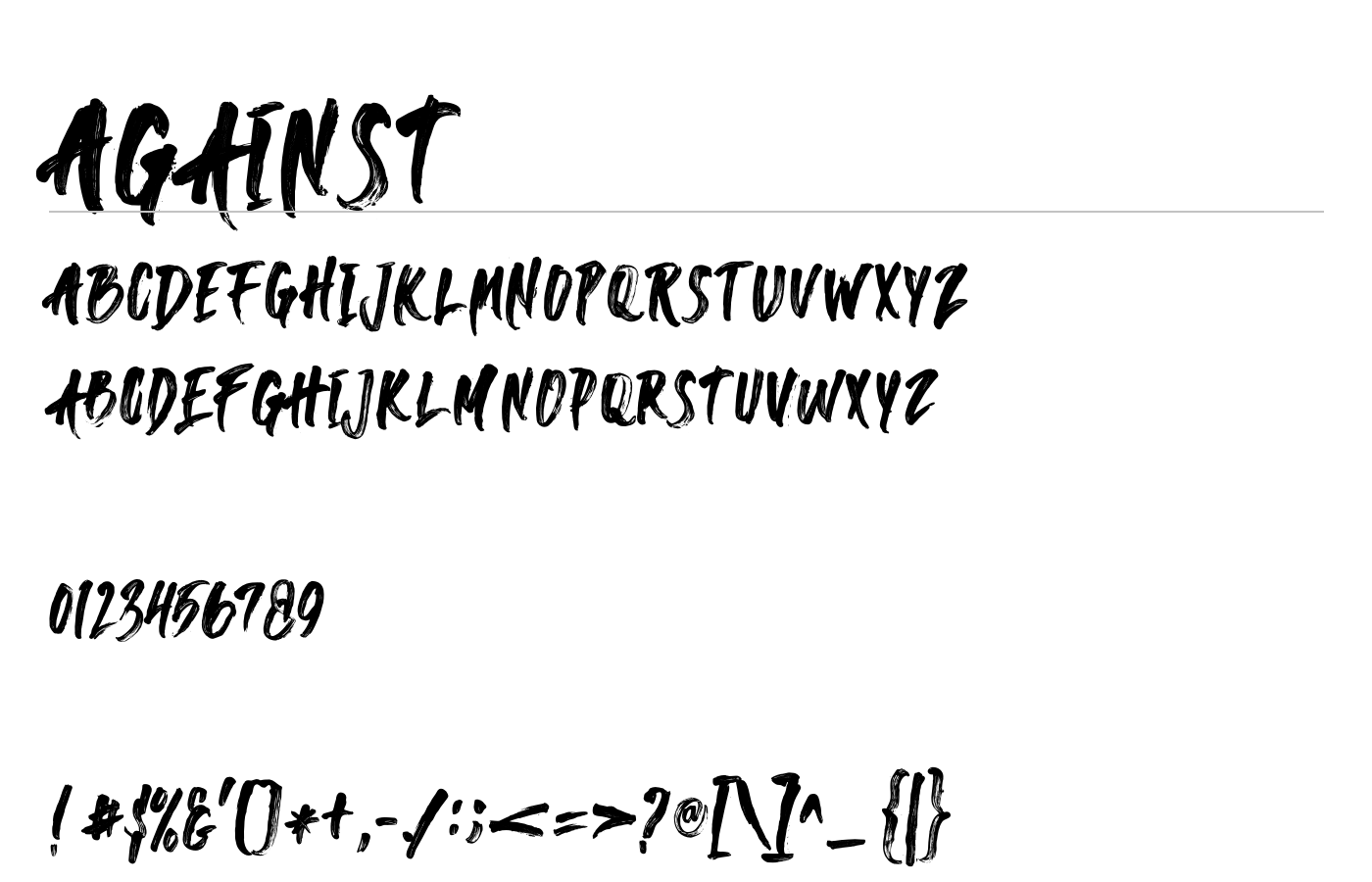
Against Font is a bold, expressive brush script with a raw, textured style that mimics hand-painted lettering. Its irregular strokes and dynamic forms give it an energetic and rebellious feel, making it perfect for creative projects, edgy branding, and eye-catching headlines that demand attention. This font works well in designs that aim to convey personality, movement, and a handcrafted vibe.
Against Font
About Against Font
| Font family | Against Font |